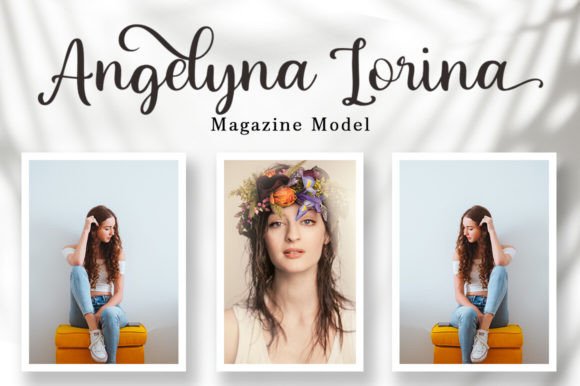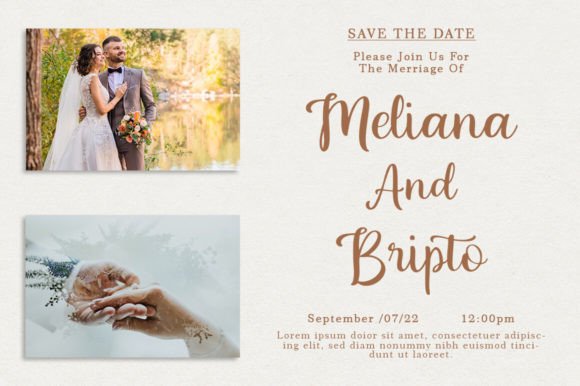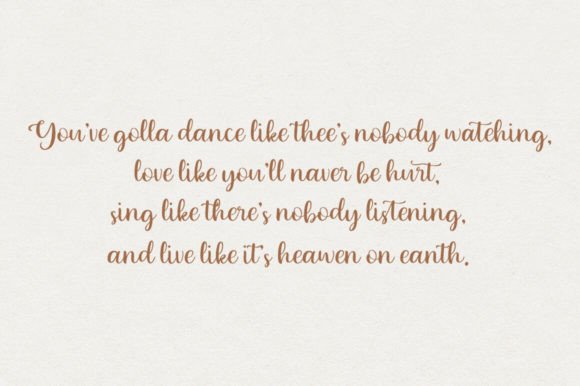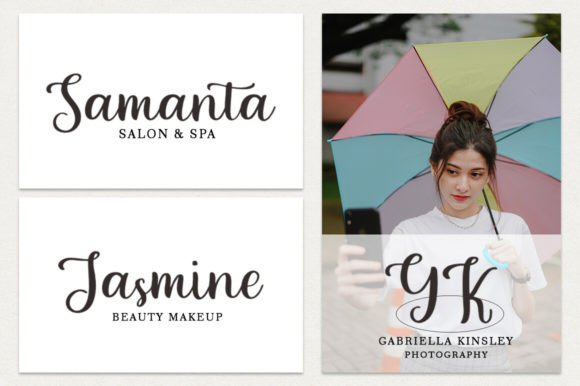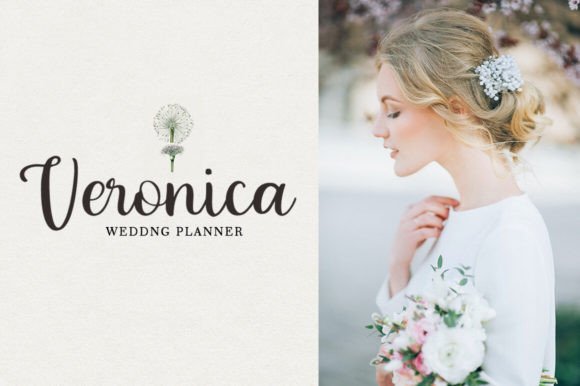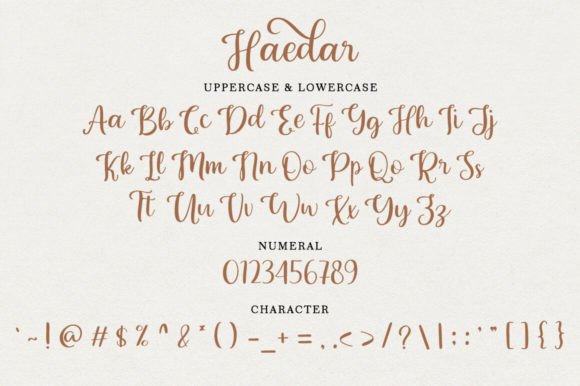
Introducing Haedar Font: A Modern Calligraphy Design for Creative Projects
Are you a designer or crafter looking for a unique and beautiful font to elevate your creative projects? Look no further than Haedar Font, a modern calligraphy design that is sure to impress. With its casual and elegant swashes, Haedar Font is perfect for a wide range of applications, from logos and product packaging to wedding invitations and branding.
What is Haedar Font?
Haedar Font, also known as Haedar Script, is a modern calligraphy design that features a regular style with beautiful swashes. The font is designed to be versatile and can be used for various purposes, making it a great addition to any designer’s toolkit. Whether you’re creating a logo, designing a book cover, or crafting a wedding invitation, Haedar Font is sure to add a touch of elegance and sophistication.
Key Features of Haedar Font
- Modern Calligraphy Design: Haedar Font features a modern calligraphy design that is both elegant and casual.
- Regular Style: The font includes a regular style with beautiful swashes that add a touch of sophistication to any design.
- Versatile: Haedar Font can be used for a wide range of applications, from logos and product packaging to wedding invitations and branding.
- Easy to Read: The font is easy to read, making it perfect for body text and headlines.
Uses of Haedar Font
Haedar Font is a versatile font that can be used for a wide range of creative projects, including:
- Logos: Create a unique and memorable logo for your business or brand with Haedar Font.
- Product Packaging: Add a touch of elegance to your product packaging with Haedar Font.
- Wedding Invitations: Create beautiful and elegant wedding invitations with Haedar Font.
- Branding: Use Haedar Font to create a consistent brand identity across all your marketing materials.
- Headlines: Add a touch of sophistication to your headlines with Haedar Font.
- Signage: Use Haedar Font to create eye-catching signage for your business or event.
- Labels: Create beautiful and elegant labels with Haedar Font.
- Signatures: Add a touch of elegance to your signatures with Haedar Font.
- Book Covers: Create a stunning book cover with Haedar Font.
- Posters: Use Haedar Font to create eye-catching posters for your business or event.
- Quotes: Add a touch of sophistication to your quotes with Haedar Font.
Why Choose Haedar Font?
There are many reasons why Haedar Font is a great choice for designers and crafters, including:
- Unique Design: Haedar Font features a unique and modern calligraphy design that is sure to stand out.
- Versatility: The font can be used for a wide range of applications, making it a great addition to any designer’s toolkit.
- Elegance: Haedar Font adds a touch of elegance and sophistication to any design.
In conclusion, Haedar Font is a beautiful and versatile modern calligraphy design that is perfect for a wide range of creative projects. With its elegant swashes and regular style, Haedar Font is sure to add a touch of sophistication to any design. Whether you’re a designer or crafter, Haedar Font is a great choice for anyone looking to elevate their creative projects.